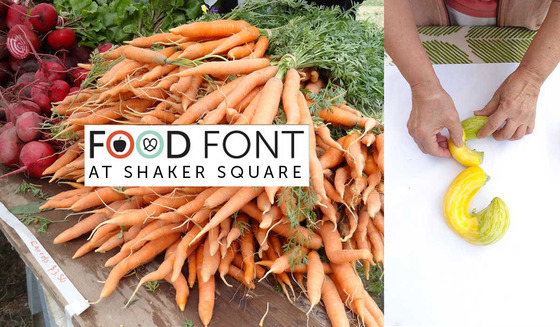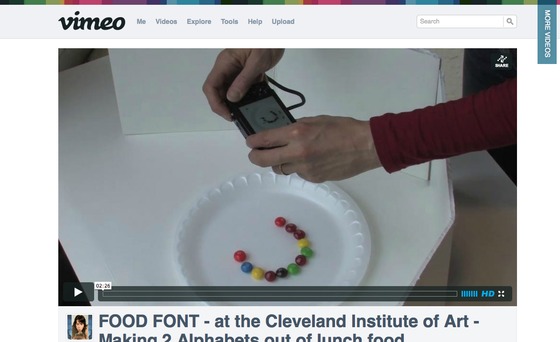
Food Font - New video and an upcoming event in my hometown!
I just posted a video from the Food Font activity that was done at the Cleveland Institute of Art last Spring. Students, faculty and staff worked to create 2 food alphabets: The CIA Vending machine food alphabet (made of food from the vending machines) and The CIA Packed Lunch alphabet (made of food from packed lunches.)
You can see the CIA Food Font event video on Vimeo online.
I am excited to bring Food Font to the farmers market in Cleveland that I go to regularly this weekend. Food Font will be at the Shaker Square Farmers Market this Saturday from 8am - 12 noon. You can read more on the Facebook event page. If you are in the area - come stop by and make a letter and say "hi!"
Why not play and write with your food?